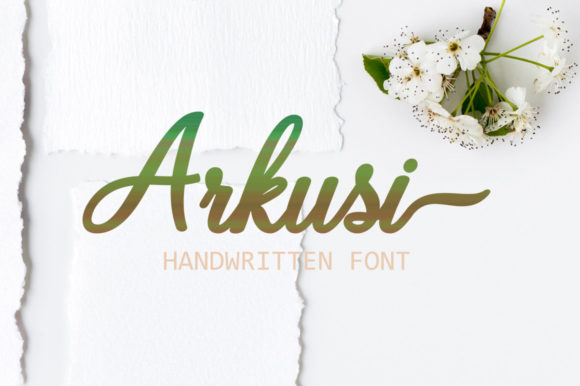
Introducing Arkusi Font, the epitome of elegance and charm in the world of script fonts. Arkusi is not just a font; it's an experience that will transform your designs into captivating masterpieces. Crafted with meticulous attention to detail by the talented team at gatype, Arkusi possesses a unique personality that dances along the baseline, adding a touch of magic to every letter.
Designed with versatility in mind, Arkusi effortlessly adapts to a wide range of projects, from enchanting wedding invitations to whimsical branding materials. Its PUA encoding makes accessing glyphs and swashes a breeze, allowing you to unleash your creativity without limits. Whether you're a seasoned designer or just starting your journey, Arkusi will be your trusted companion, elevating your work to new heights.
Picture this: your wedding day, the most important day of your life. As your loved ones gather to witness your vows, the Arkusi Font gracefully adorns your wedding signs, exuding an aura of timeless romance. Its elegant curves and playful swashes create a captivating visual symphony that perfectly captures the joy and excitement of the occasion. Arkusi transforms your wedding into an unforgettable fairy tale, leaving a lasting impression on the hearts of all who attend.
Or, envision your brand's logo, the face of your company, designed with the Arkusi Font. Its distinctive characters convey a sense of sophistication, professionalism, and unwavering quality. Arkusi elevates your brand's image, making it stand out from the crowd and attracting customers with its undeniable charm. Your marketing materials, website, and social media posts will radiate with an allure that captivates and compels, leaving a lasting impression that drives sales and builds lasting relationships with your customers.
The Arkusi Font is more than just a collection of letters; it's a gateway to a world of creative possibilities. Its versatility knows no bounds, whether you're designing logos, posters, social media graphics, or any other project that demands a touch of elegance and charm. Arkusi breathes life into your creations, capturing the essence of your message and conveying it with a disarming charm that resonates with your audience.
Don't settle for ordinary fonts that blend into the background. Embrace the extraordinary with Arkusi Font, a font that commands attention, ignites imaginations, and leaves an indelible mark on the hearts of all who encounter it. Arkusi is the key to unlocking your creative potential and crafting designs that captivate, inspire, and endure.